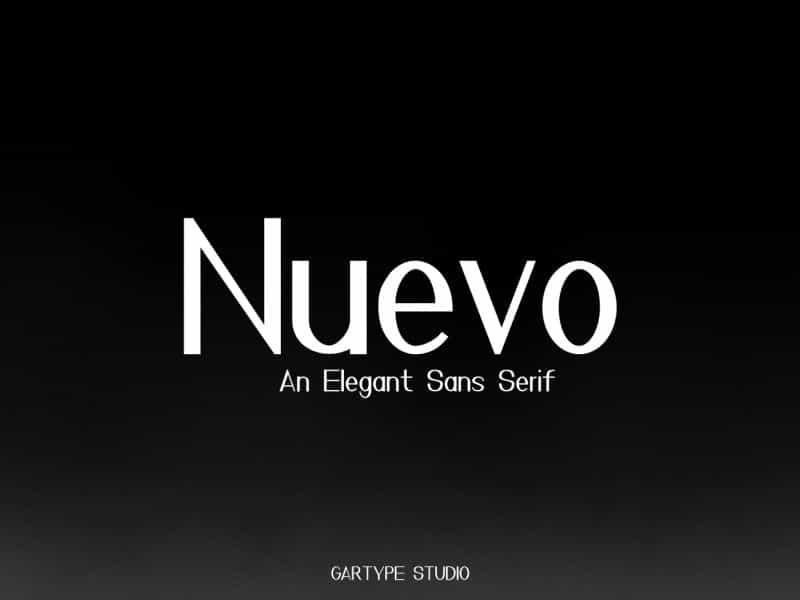
Nuevo is a new elegant sans serif with a touch of elegance which will help you make your needs as beautiful as magazine covers, poster, signature, logo, tagline, title and many more.